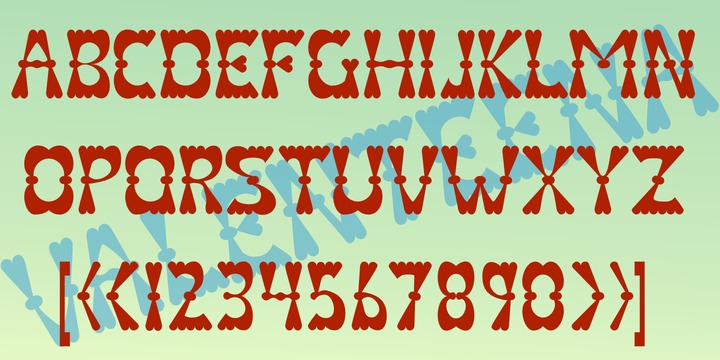
• Valenteena™
Valenteena is in the spirit of the 19th century, but there are no other typefaces quite like it. It is geometric, using distorted hearts to form the letters. The lower-case letters are smaller versions of the upper-case letters.